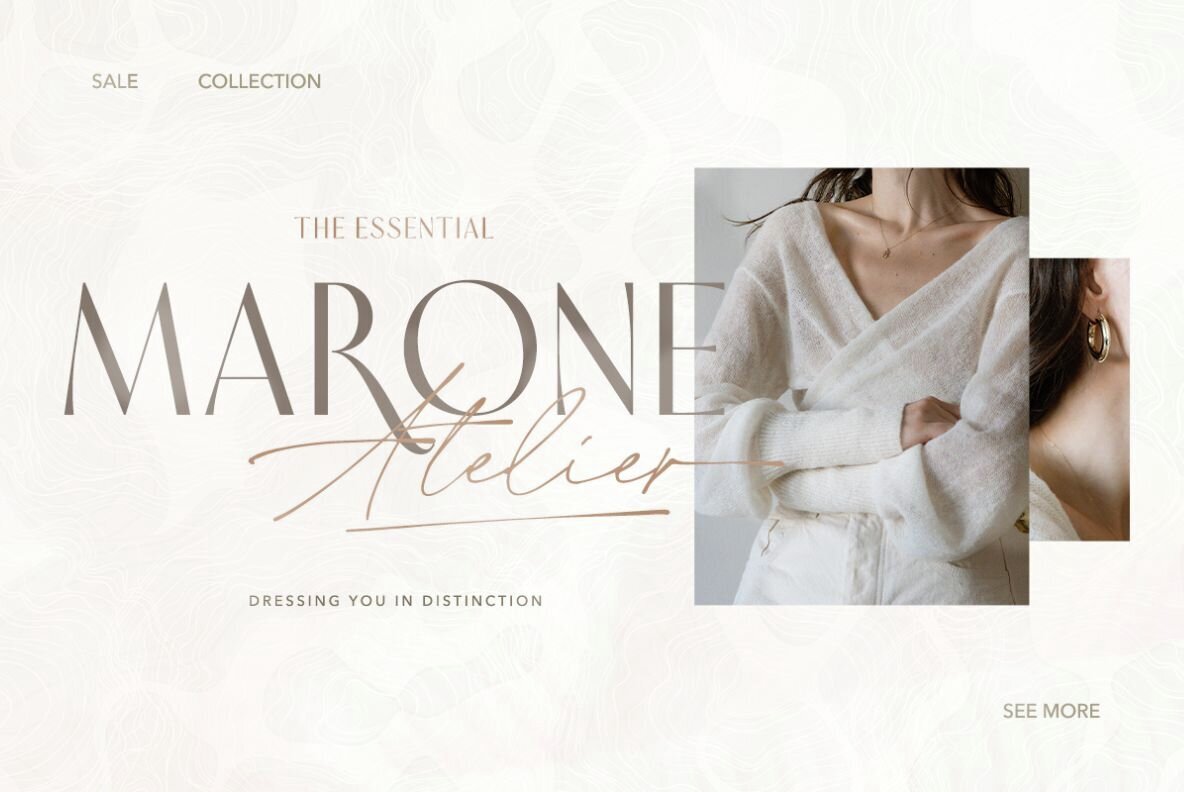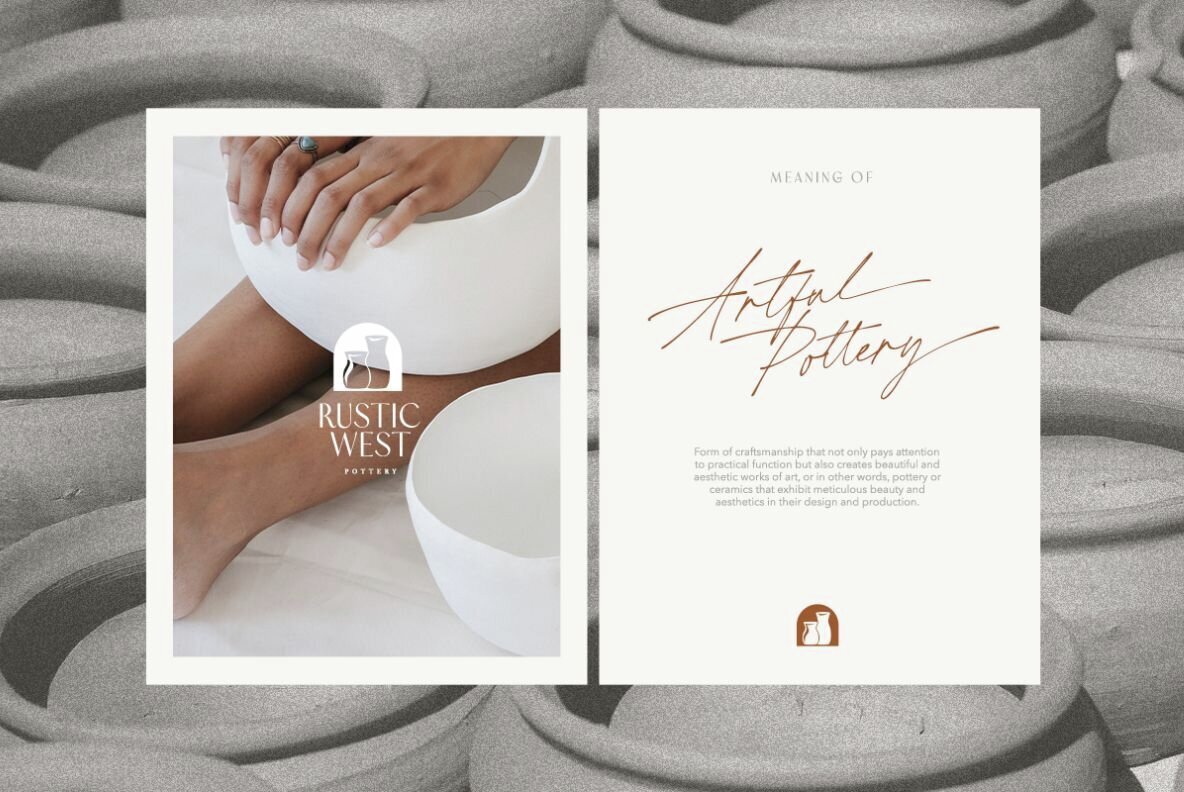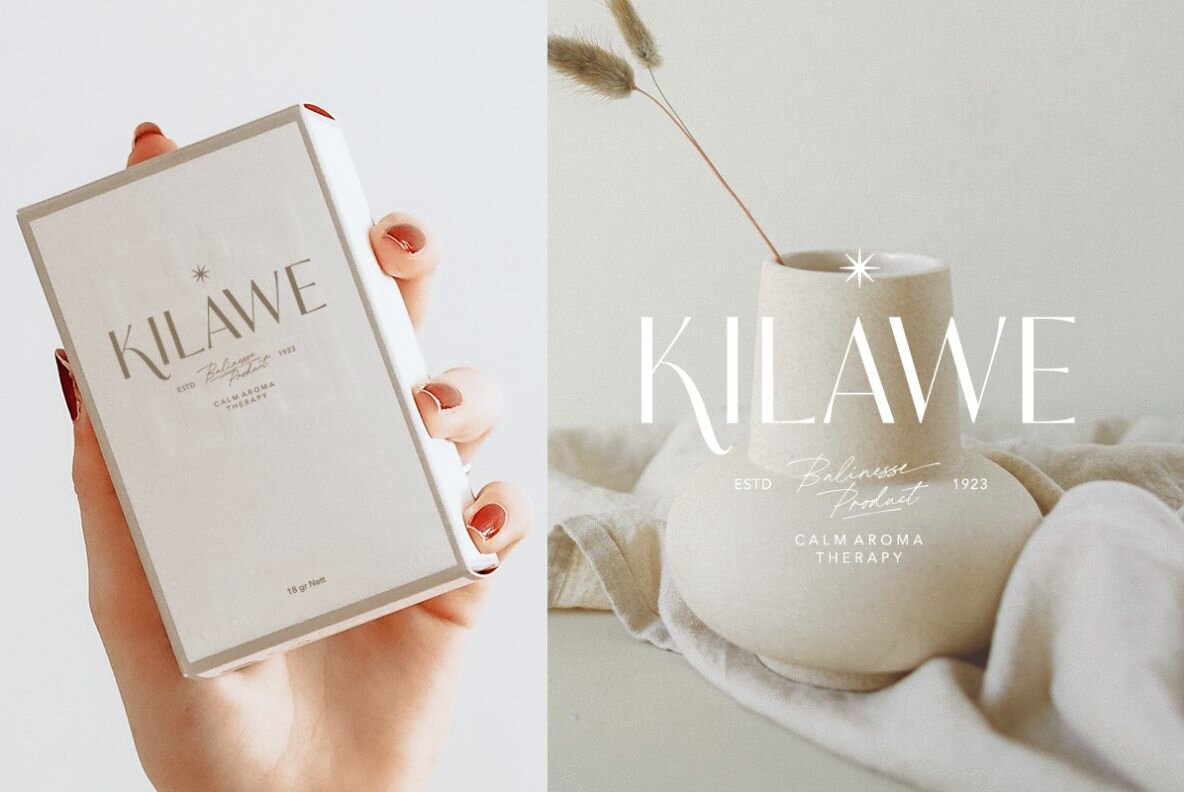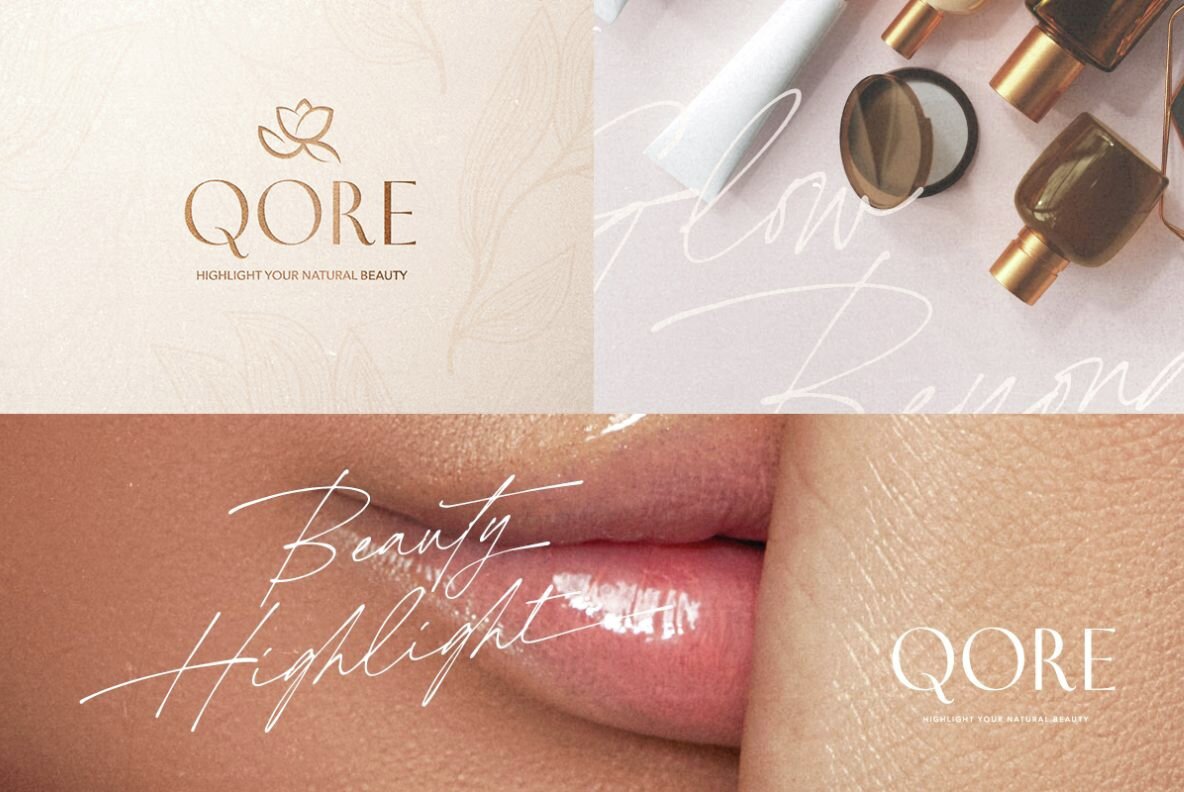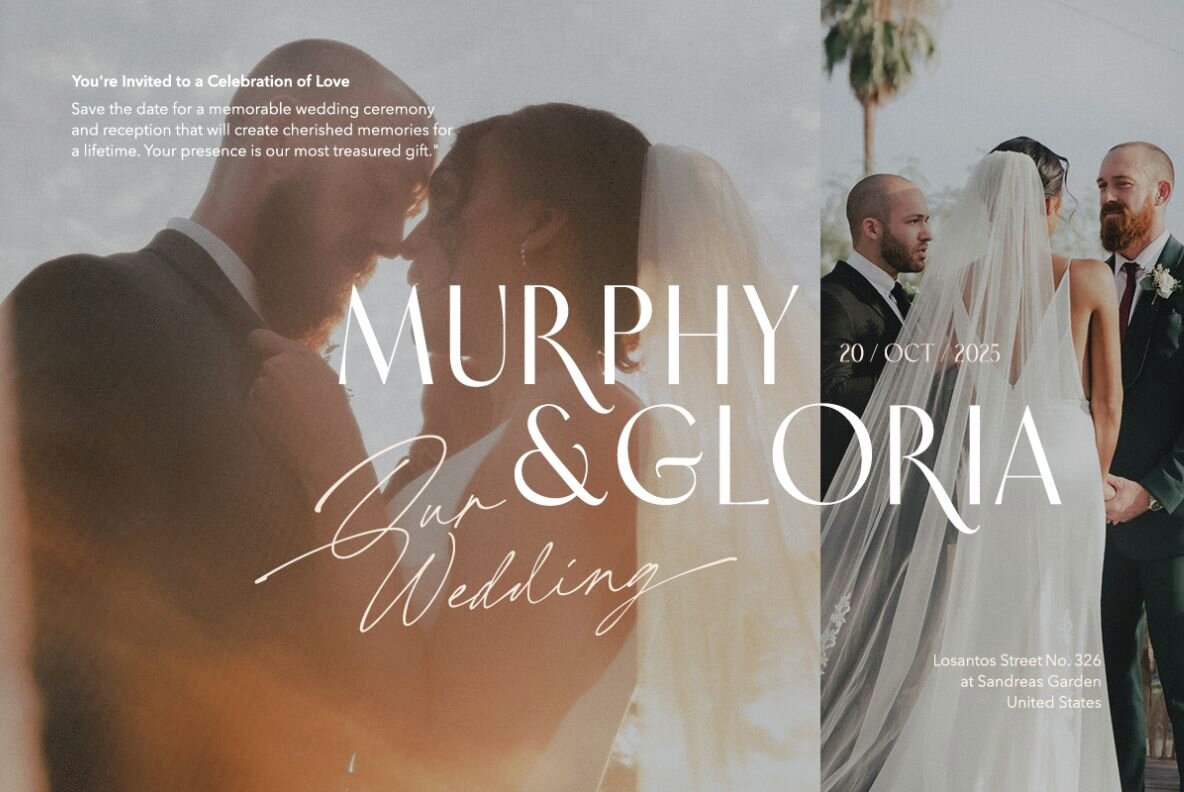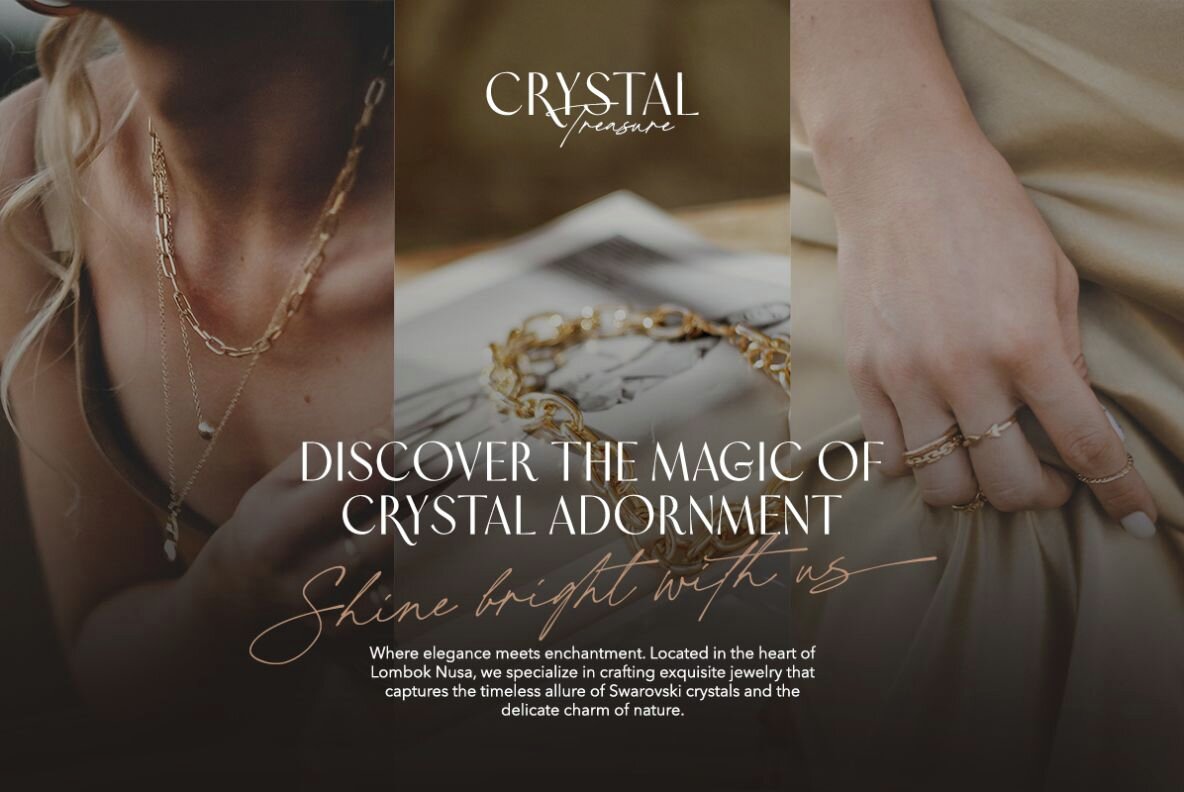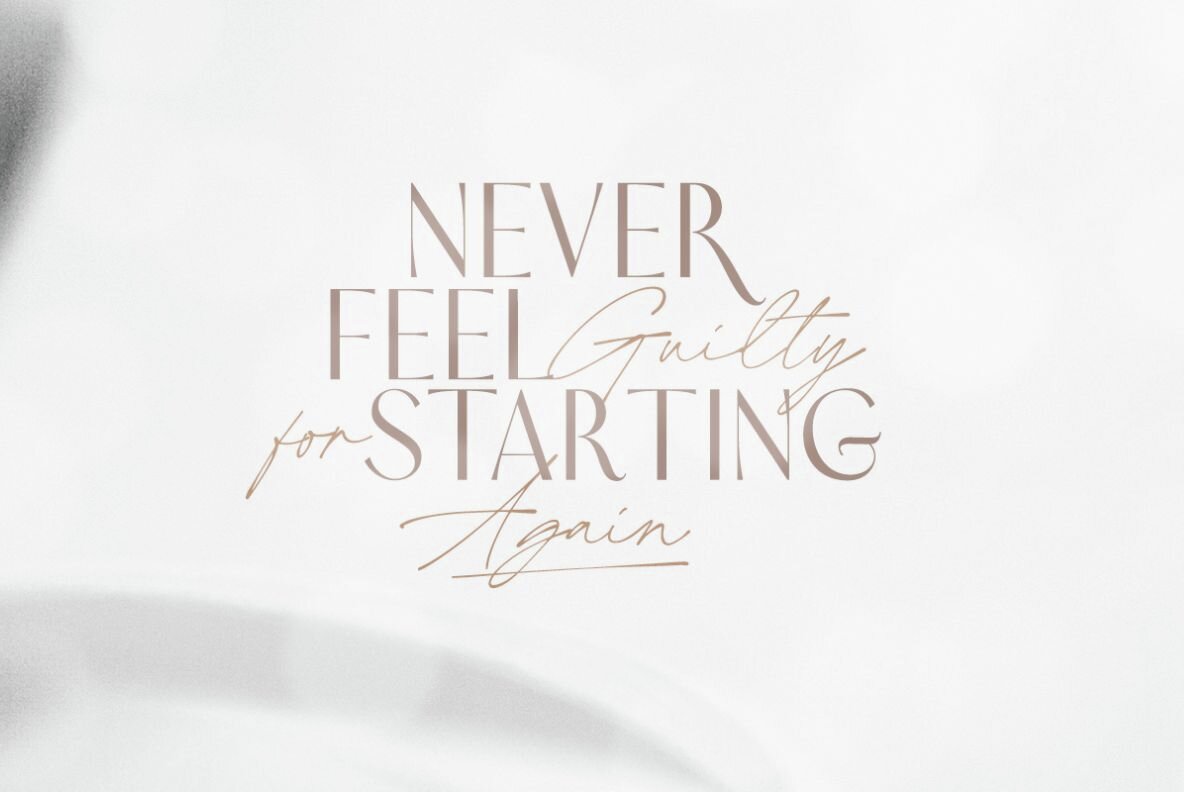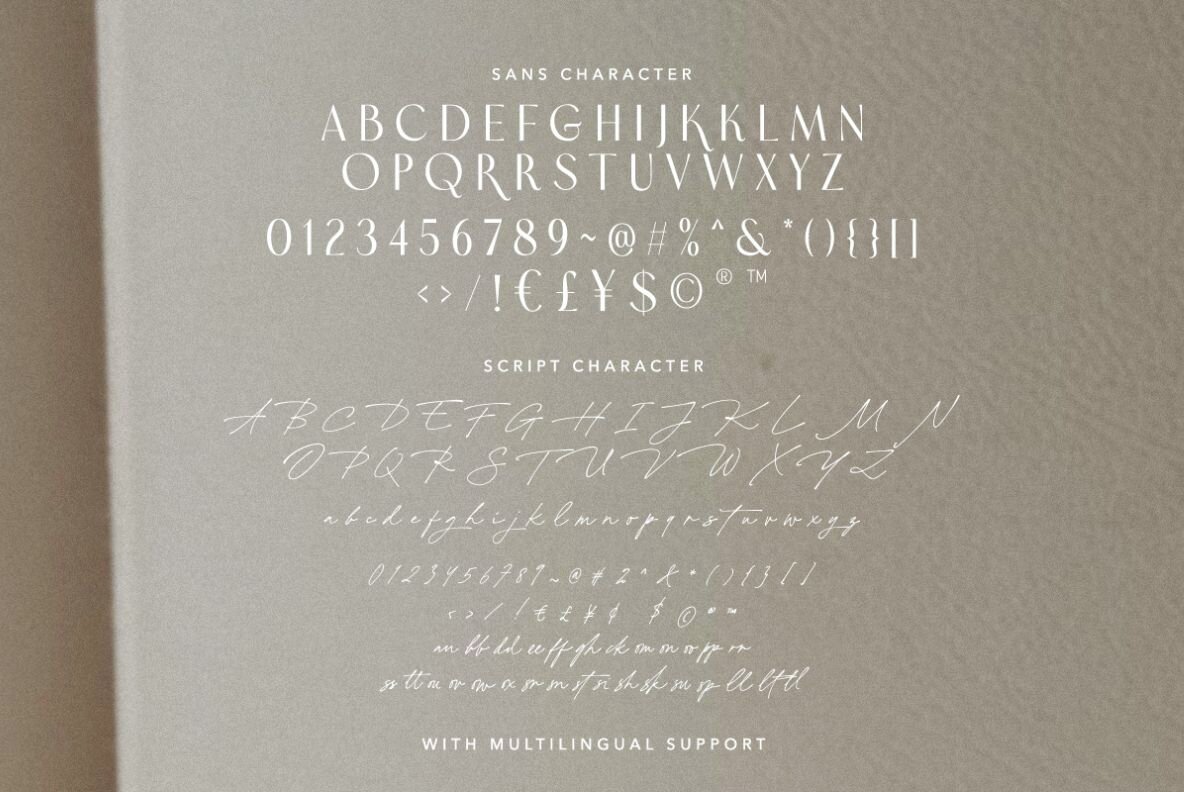
Bright Darling Font
Bright Darling Sans
Bright Darling Script
Bright Darling presents a harmonious blend of modern sans-serif and distinctive signature script, offering a versatile font duo for various design needs. This refined pair includes an all-caps sans-serif and a complementary handwriting script, making it ideal for branding, quotes, wedding invitations, and logos.
With multilingual support, numbers, symbols, end swashes, and numerous ligatures, Bright Darling ensures comprehensive versatility and creative freedom. Add this elegant and functional font duo to your toolkit to enhance your design projects with sophistication and style.